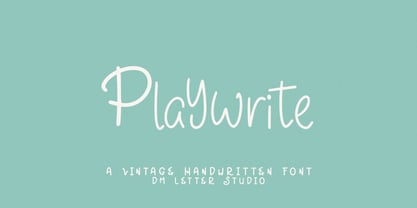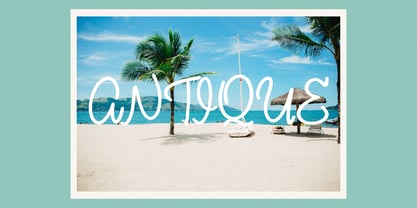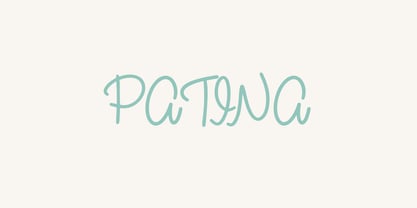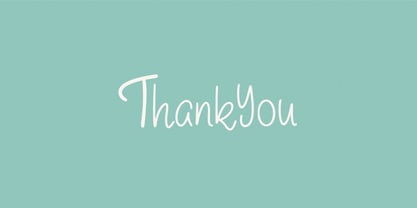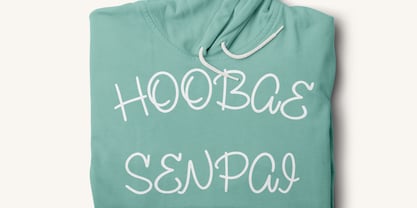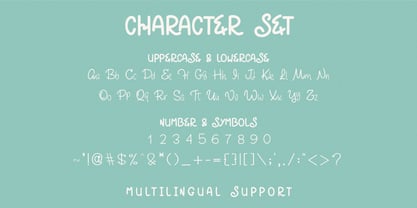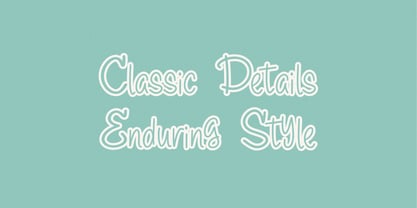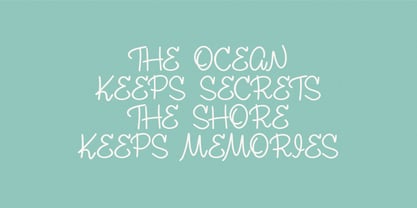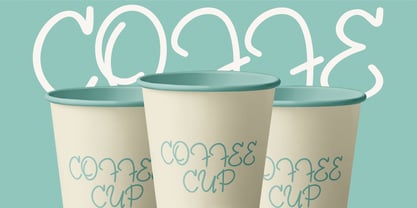
Playwrite
La familia tipográfica Playwrite fue diseñada por Dimas Prasetyo y publicada por DM Studio. Playwrite contiene 1 estilos. Más información sobre esta familia
Meet Playwrite, the Vintage Handwriting Font Playwrite is a vintage handwriting font with a warm, nostalgic feel, like notes written on old paper with a confident pen. The strokes look natural and slightly textured, giving your words a handmade character that feels authentic and personal. It’s expressive, but still clean enough to stay readable across products. Use Playwrite for retro branding, packaging, posters, book covers, journals, stickers, and social media quotes. As a result, your designs feel timeless, cozy, and full of story. Why Playwrite sells First, Playwrite installs easily and works smoothly in Canva, Photoshop, Illustrator, and Procreate. Next, the vintage handwriting style adds instant personality, which helps simple designs look premium and crafted. Then layouts come together faster because the letter rhythm is consistent across words. Moreover, Playwrite pairs beautifully with classic serifs and clean sans fonts, so you can build complete retro sets quickly. Therefore, it’s a strong choice for creators selling vintage, handmade, and lifestyle designs. Fast layouts with the Playwrite Font Start with short phrases, logos, or product names to highlight the handwritten charm. After that, pair Playwrite with a clean serif for a classic look, or a simple sans for a more modern vintage vibe. Because the style is naturally expressive, keep extra effects minimal. In addition, it looks great on kraft paper textures, muted backgrounds, and simple label shapes. Finally, save palettes like cream and charcoal, tan and black, dusty blue and ivory, or rust and beige to reuse across product lines. Creative uses and quick wins Vintage logos and boutique brand marks Packaging labels for coffee, candles, soap, and handmade goods Posters, flyers, and retro quote prints Journal covers, planners, stickers, and greeting cards What you get Uppercase and lowercase letters Numbers and basic punctuation Design tips for Playwrite Use Playwrite for titles, short quotes, and signature-style text rather than long paragraphs. Also, give it enough breathing room so the handwritten shapes stay clear. For print, export at 300 DPI to preserve natural stroke texture. For digital use, scale slightly larger so strokes remain crisp on mobile screens. Finally, if the background is busy, place the text on a solid label block for clean readability.